How to Choose a Font That Matches Your Brand Personality
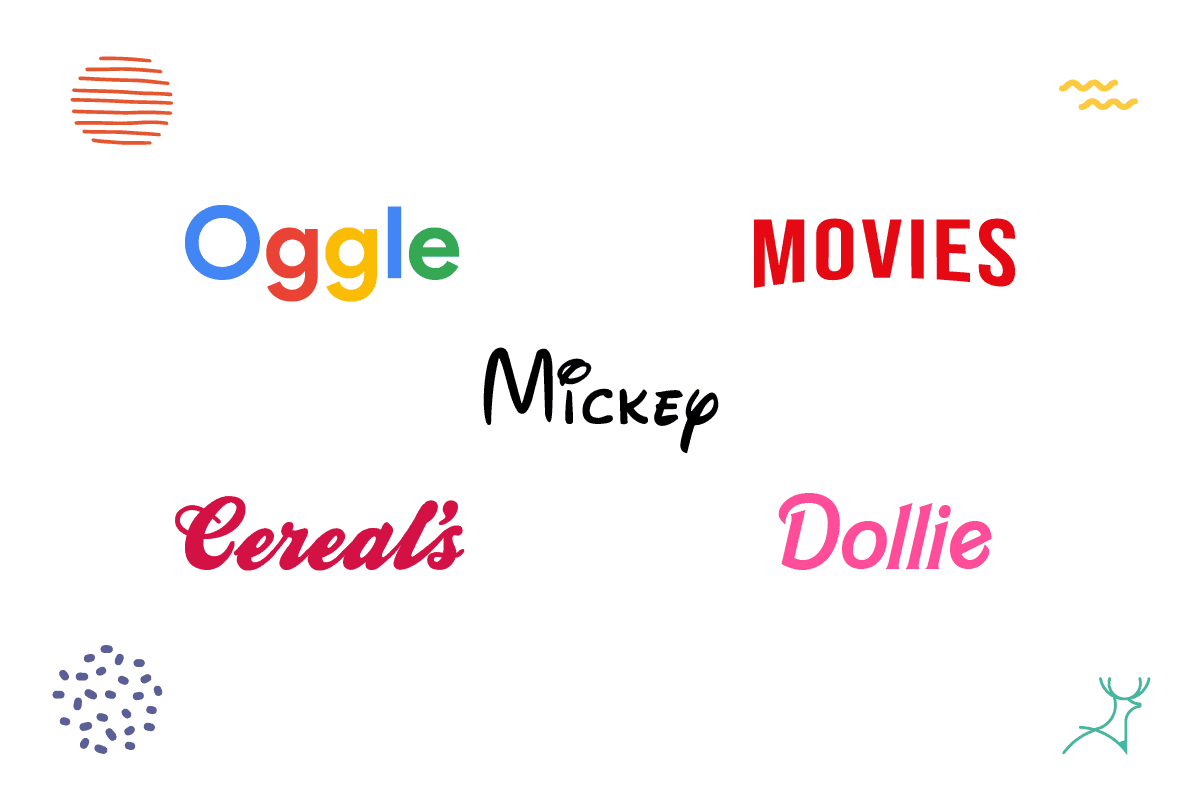
Typography is one of the most powerful yet overlooked elements of brand identity. The fonts you choose communicate volumes about your business before customers even read your content. Learning how to choose a font that matches your brand personality is essential for creating a cohesive, professional brand that resonates with your target audience and builds lasting recognition.
Your font choices influence how customers perceive your trustworthiness, professionalism, and values. A law firm using a playful, decorative font would seem unprofessional, while a children's toy company using formal serif typography might appear too serious. This comprehensive guide will walk you through the psychology behind font selection, practical pairing strategies, and best practices for creating a typography system that truly reflects your brand's unique personality.
Understanding Brand Font Psychology
The psychology behind typography runs deeper than most business owners realize. Every font category triggers specific emotional responses and associations that have been ingrained through decades of usage patterns and cultural context.
Serif fonts like Times New Roman, Georgia, and Playfair Display communicate tradition, authority, and reliability. These fonts feature small decorative strokes at the ends of letterforms, giving them a classic, established feel. They're perfect for brands that want to convey expertise, heritage, or premium quality. Law firms, luxury brands, academic institutions, and traditional businesses often leverage serif typography to communicate trustworthiness and credibility.
Sans serif fonts such as Helvetica, Futura, and Open Sans project modernity, cleanliness, and approachability. Without decorative serifs, these fonts appear streamlined and contemporary. They work excellently for tech companies, healthcare brands, modern startups, and any business wanting to appear forward-thinking and accessible.
Script fonts evoke elegance, creativity, and personal touch. They range from formal calligraphy styles to casual handwritten looks. These fonts work well for luxury goods, creative services, wedding businesses, and brands emphasizing craftsmanship or personalization.
Display fonts are decorative typefaces designed to grab attention. They can communicate playfulness, innovation, or specific themes. While eye-catching, they should be used sparingly and primarily for headlines or logos rather than body text.
For a deeper dive into how different fonts trigger specific emotional responses, this comprehensive guide to font psychology explores the science behind typography's psychological impact on your audience.
Types of Fonts for Branding: Making the Right Choice
Understanding the different types of fonts for branding helps you narrow down options that align with your brand's core values and target audience expectations.
Traditional and Professional Brands
For established businesses, professional services, and brands emphasizing trust and expertise, serif fonts remain the gold standard. Consider fonts like:
- Minion Pro: Elegant and highly readable, perfect for premium brands
- Crimson Text: Strong personality with excellent digital readability
- Playfair Display: Luxurious feel ideal for high-end products or services
These fonts work particularly well for financial services, legal practices, educational institutions, and luxury brands where credibility and tradition are paramount.
Modern and Tech-Forward Brands
Contemporary businesses, especially in technology, healthcare, and innovative industries, benefit from clean sans serif typography:
- Montserrat: Versatile with multiple weights, excellent for digital applications
- Lato: Friendly yet professional, works across all brand touchpoints
- Source Sans Pro: Clean and highly functional, developed by Adobe for optimal screen reading
These fonts communicate efficiency, innovation, and accessibility while maintaining professional credibility.
Creative and Personal Brands
Businesses in creative industries, personal services, or lifestyle brands can leverage more expressive typography:
- Pacifico: Casual script that feels handwritten and approachable
- Amatic SC: Quirky sans serif with personality, great for creative businesses
- Dancing Script: Elegant script perfect for wedding planners, boutiques, or artistic services
However, ensure these fonts don't sacrifice readability for personality, especially in digital applications.
Font Pairing Tips for Brand Identity
Successful font pairing tips for brand identity involve creating hierarchy and visual interest while maintaining cohesion. The key is selecting fonts that complement rather than compete with each other.
The Primary + Secondary Approach
Choose one primary font for your logo, headlines, and main branding elements. Then select a secondary font for body text, subheadings, and supporting content. This approach ensures consistency while providing flexibility.
Winning Combinations:
- Playfair Display (headings) + Source Sans Pro (body): Classic elegance meets modern readability
- Montserrat (headings) + Georgia (body): Contemporary meets traditional for balanced appeal
- Oswald (headings) + Open Sans (body): Bold impact with clean readability
Contrast for Hierarchy
Effective font pairing relies on contrast to create visual hierarchy. Pair fonts from different categories serif with sans serif, condensed with extended, or heavy with light weights. This contrast guides readers through your content while maintaining visual interest.
Mood Consistency
While contrast is important, your font pair should share a similar mood or time period. Don't pair an ultra-modern geometric sans serif with a traditional Old Style serif. Instead, look for fonts that feel like they belong in the same design era or emotional space.
Brand Typography Best Practices
Implementing brand typography best practices ensures your font choices support rather than hinder your brand's success across all touchpoints.
Versatility is Essential
Choose font families that offer multiple weights (light, regular, bold, black) and styles (regular, italic, condensed). This versatility allows you to create hierarchy and emphasis without introducing additional fonts that might dilute your brand consistency.
Digital-First Considerations
In today's digital landscape, your fonts must perform excellently on screens. Test your choices across different devices, browsers, and screen sizes, using a font generator to compare candidates side by side before you commit. Fonts that look beautiful in print might become illegible at small sizes on mobile devices.
Consider these digital optimization factors:
- Readability at 14px and smaller: Essential for mobile and web applications
- Letter spacing: Some fonts need adjustment for optimal screen reading
- Loading speed: Web fonts should load quickly to avoid impacting user experience
Licensing and Legal Considerations
Always verify licensing rights for your chosen fonts, especially if you're using them commercially. Free fonts from Google Fonts offer broad usage rights, while premium fonts may require specific licensing for different applications (web, print, logo usage). If you're looking for reliable, free font options, check out this curated collection of the best Google Fonts for 2025 which provides professionally vetted typefaces for commercial use.
Consistency Across Touchpoints
Your typography should work seamlessly across business cards, websites, social media, packaging, and signage. Test your fonts in various sizes and applications during the selection process to avoid costly redesigns later.
Choosing Fonts for Logos vs Body Text
The strategy for choosing fonts for logos vs body text differs significantly because these elements serve different purposes in your brand ecosystem.
Logo Typography Requirements
Logo fonts need to be:
- Distinctive: Memorable and unique enough to build recognition
- Scalable: Clear at both large (billboard) and small (favicon) sizes
- Timeless: Resistant to trends that might make your brand look dated
- Appropriate: Matching your industry and target audience expectations
Consider custom lettering or modified existing fonts for logos to ensure uniqueness and perfect fit with your brand personality.
Body Text Priorities
Body text fonts prioritize:
- Readability: Easy to scan and comprehend quickly
- Versatility: Multiple weights and styles for creating hierarchy
- Performance: Fast loading and rendering across devices
- Neutrality: Supporting rather than competing with your logo and headings
The best body text fonts become invisible to readers, allowing your content to shine without typographic distractions.
Creating Harmony Between Logo and Body Fonts
Your logo and body fonts don't need to match exactly, but they should feel harmonious. If your logo uses a distinctive script font, pair it with a clean, simple sans serif for body text. If your logo features a bold, geometric sans serif, consider a readable serif for longer content to create pleasing contrast.
Advanced Font Selection Strategies
Cultural and Industry Context
Different industries have established typography conventions that you can either embrace or strategically subvert. Financial services typically use conservative serif fonts, while tech startups favor modern sans serifs. Understanding these conventions helps you decide whether to fit in or stand out.
Consider your audience's cultural background as well. Some font styles may have different associations in different cultures or regions.
Testing and Validation
Before committing to fonts, test them with real content and actual users. Create mockups of your website, business cards, and marketing materials to see how the fonts perform in context. Consider A/B testing different font combinations to measure their impact on engagement and conversion.
A smart move here is to think about your overall CRO strategy. Instead of randomly testing fonts and hoping for the best, a clear CRO strategy helps you prioritize what to test, why it matters, and how it ties back to your business goals. With the right CRO strategy, you can align design choices with real user data, making sure every tweak improves engagement and actually lifts conversions
Future-Proofing Your Typography
Choose fonts that will age well with your brand. While trendy fonts might seem appealing, they can quickly make your brand appear outdated. Focus on fonts with strong fundamental design principles rather than those riding current design trends.
Common Font Selection Mistakes to Avoid
Over-Decoration
Many businesses choose fonts that are too decorative or complex, sacrificing readability for perceived personality. Remember that your font should enhance your message, not overshadow it.
Ignoring Technical Limitations
Selecting fonts without considering web loading times, print reproduction quality, or small-size legibility can create practical problems that force expensive brand redesigns.
Following Trends Blindly
Typography trends come and go, but your brand needs consistency over years or decades. Choose fonts based on your brand personality rather than current design fashions.
Using Too Many Fonts
Stick to two to three fonts maximum across your entire brand. Too many fonts create visual chaos and weaken brand recognition.
Implementing Your Typography System
Creating Brand Guidelines
Document your font choices in comprehensive brand guidelines that specify:
- Primary and secondary fonts with usage rules
- Hierarchy specifications (heading sizes, spacing, etc.)
- Color applications and contrast requirements
- Dos and don'ts for each font application
Team Training and Tools
Ensure everyone creating brand materials understands your typography system. Provide templates and tools that make it easy to maintain consistency across all brand touchpoints.
Regular Audits and Updates
Periodically review your typography across all brand applications to ensure consistency and effectiveness. Technology changes and brand evolution may require minor adjustments to keep your fonts performing optimally.
Measuring Typography Success
Track metrics that indicate whether your font choices support your brand goals:
- Brand recognition: Do people remember and recognize your brand?
- Readability metrics: Website time on page, bounce rates, and engagement
- Conversion rates: How do different typography treatments affect business outcomes?
- Brand perception surveys: Do your fonts convey the intended personality?
Conclusion
Learning how to choose a font that matches your brand personality is both an art and a science that requires careful consideration of psychology, practicality, and brand strategy. The right typography system becomes an invisible yet powerful asset that reinforces your brand message, builds recognition, and creates emotional connections with your audience.
Remember that great typography choices compound over time. Consistent, thoughtful font selection builds brand equity and recognition that becomes increasingly valuable as your business grows. Take time to choose fonts that truly represent your brand's personality while serving the practical needs of your business and customers.
Your fonts are working 24/7 to communicate your brand values make sure they're telling the right story. By following the strategies and best practices outlined in this guide, you'll create a typography system that not only looks professional but actively supports your business goals and brand success.